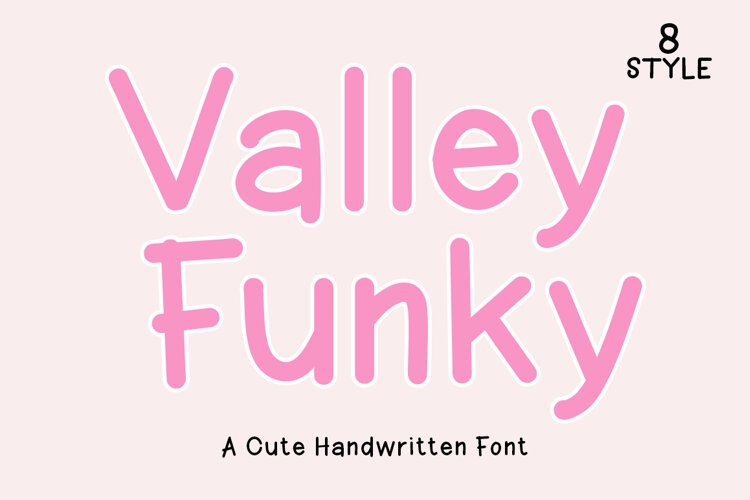
Add bubbly optimism, soft rounded charm, and fun personality to your creative projects with Valley Funky! Built as a cute handwritten display font complete with 8 versatile styles, it features tall rounded letterforms, soft friendly curves, and a cheerful hand-drawn feel. Its bouncy, playful demeanor makes headers feel warm, inviting, and full of creative joy.
Ideal for children’s book titles, planner stickers, nursery decor, cute stationery, quote prints, social media graphics, craft packaging, and custom Cricut or Silhouette craft SVG projects!